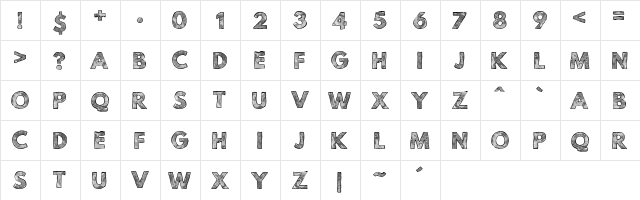
Mild Life Textured Personal Use Textured
Design Context for Mild Life Textured Personal Use Typeface
Mild Life Textured Personal Use embraces imperfection — its rough, textured character adds raw authenticity to designs that want to feel lived-in and unconventional.
A strong fit for alternative music projects, graffiti-adjacent design, and anything that deliberately resists polish.
Pro Tip: Use Mild Life Textured Personal Use at larger sizes where the texture and irregularity of each letterform can be clearly seen — it loses its character at small sizes.